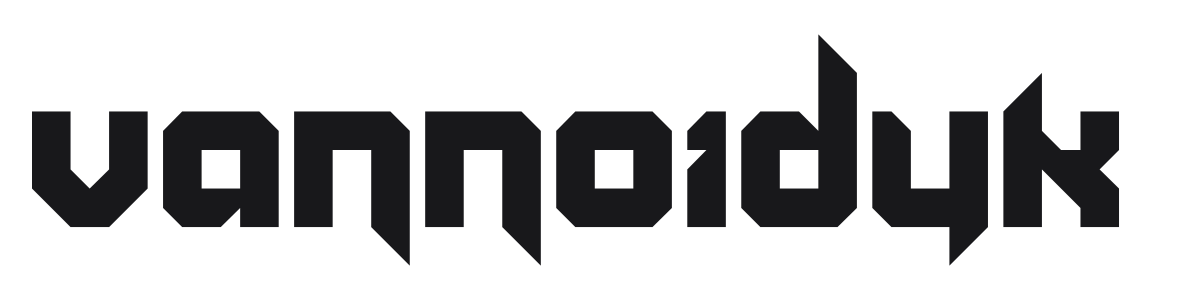
Vannoidyk
Vannoidyk is a heavy geometric techno face built entirely on angular, faceted cuts that give every character a hard, modular edge. The squared terminals and clipped corners read as boldly digital, somewhere between a circuit board and a gaming HUD. It hits hard at large sizes and suits branding that wants to feel fast and confrontational.